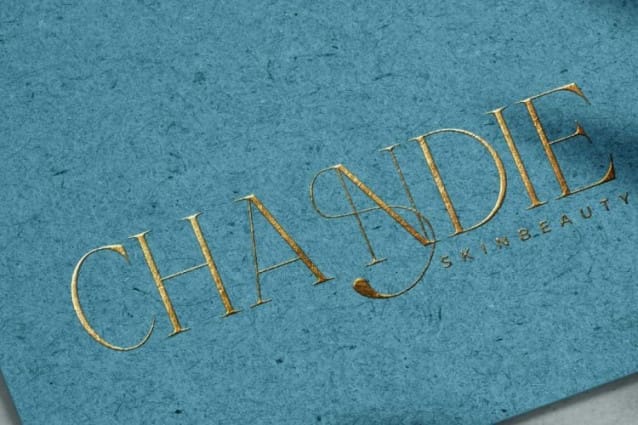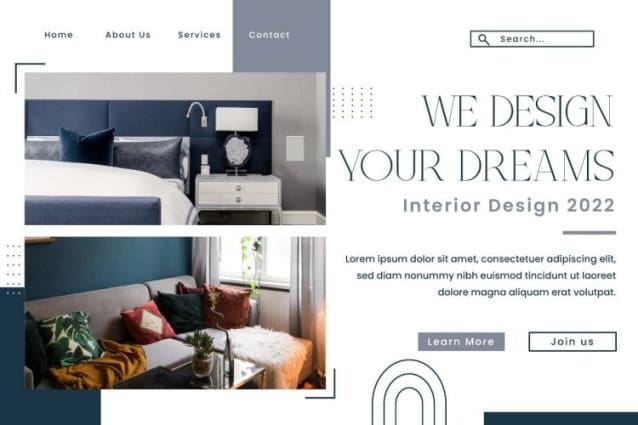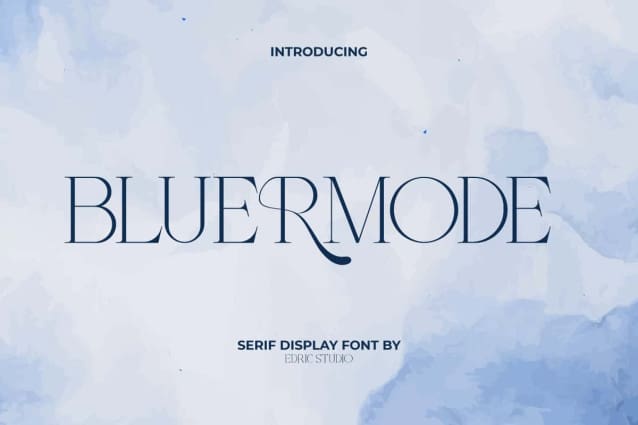
Bluermode Font
Bluermode Font is a minimalist, elegant and charming serif display font that exudes timeless elegance and nostalgic charm that elevates any design. This distinctive blend brings a layer of sophistication to any project, making it an ideal choice for app view, blogs, brand logo, brochure, cover, greeting card, headlines, logos, magazines, packaging design, posters, watermarks, website, wedding invitation, or even longer text perhaps like quotes.
Bluermode Font covers the basic characters of Uppercase and Lowercase Letters, Numbers, Punctuation and Symbols. It also includes optional Alternate to increase the appeal of the font. This typeface combines the sophistication of contemporary design with a feminine aesthetic, making it ideal for a variety of creative projects. It’s perfect for apparel, beauty clinic, content creator, cosmetic, event/celebration, fashion, florist, makeup artist, pastry chef, skincare, spa salon, etc.